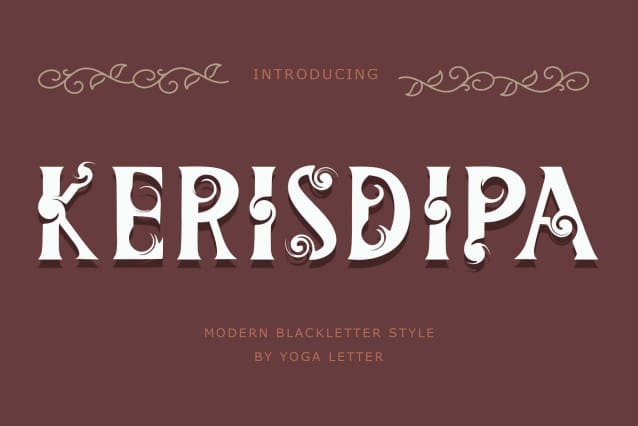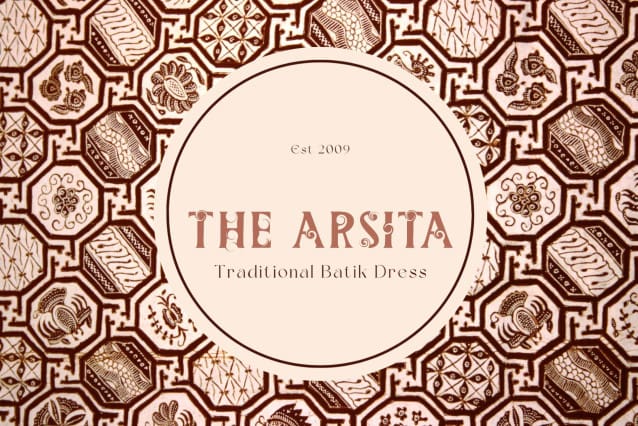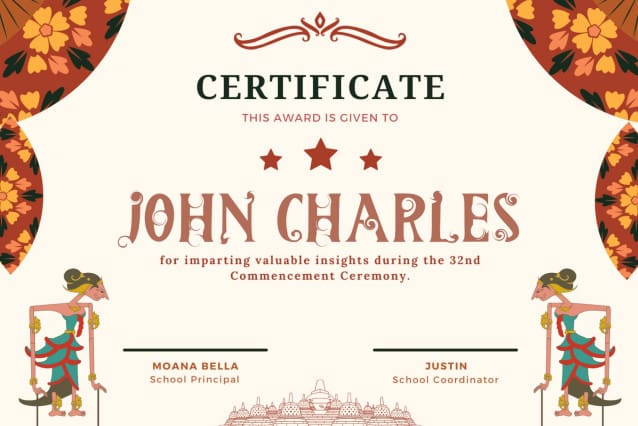
Kerisdipa Display Font is an elegant and unique blackletter special edition font. This font is equipped with uppercase, lowercase, ligatures, numerals, punctuations and multilingual support. Very suitable for use for certificates, culture, social media, business branding, logos, banners, posters, prints and others.